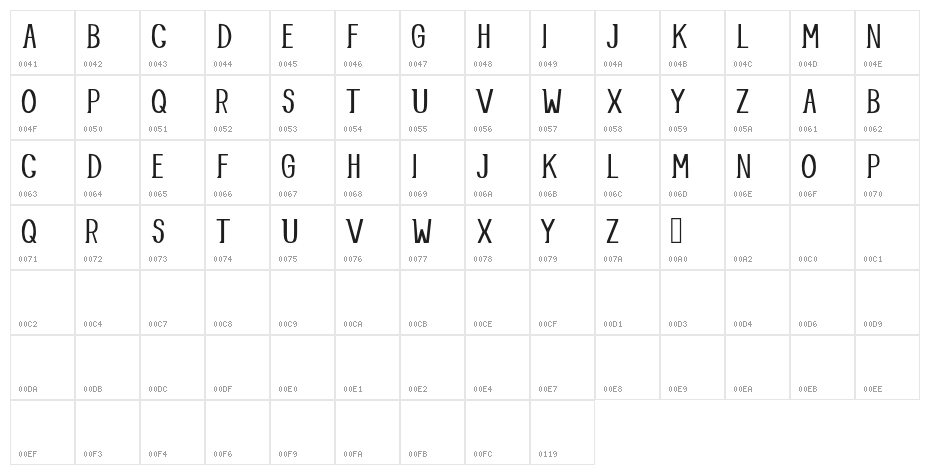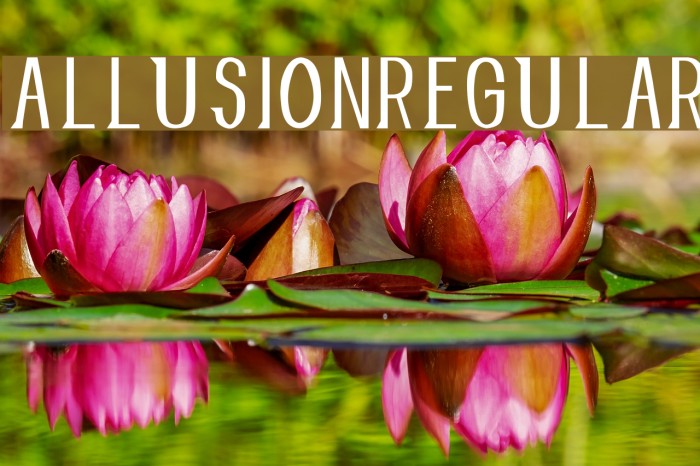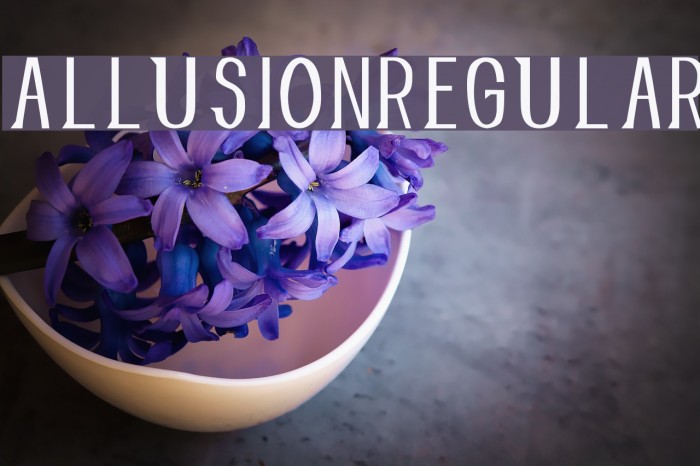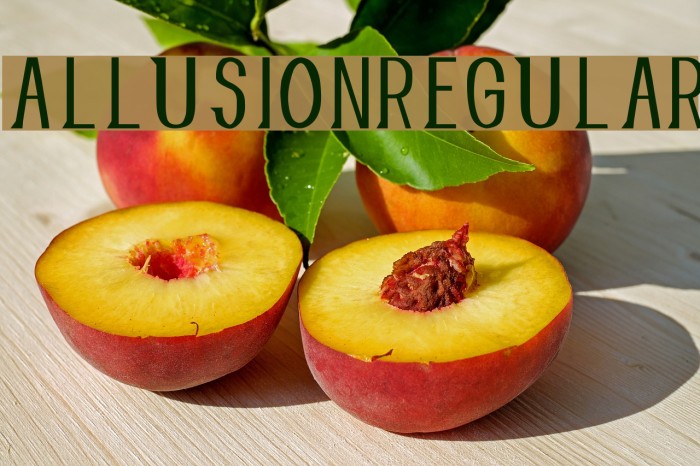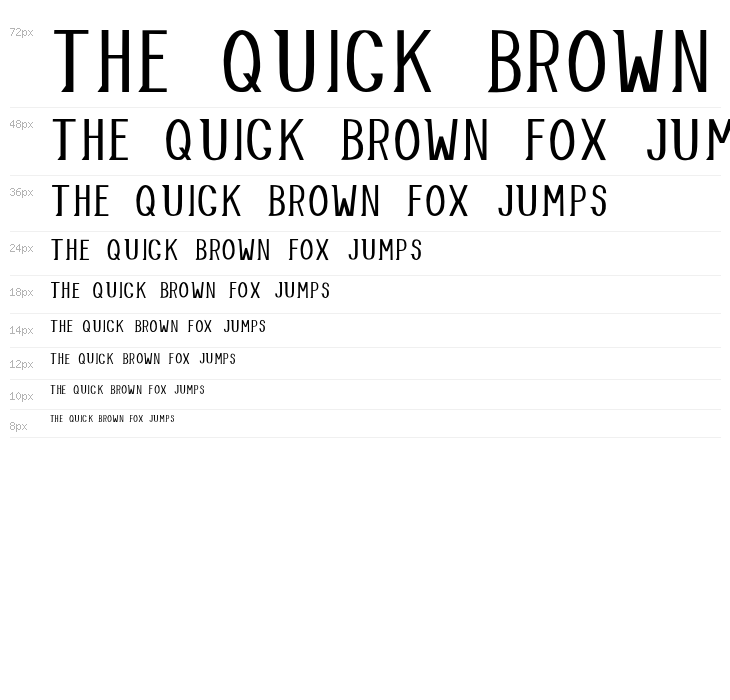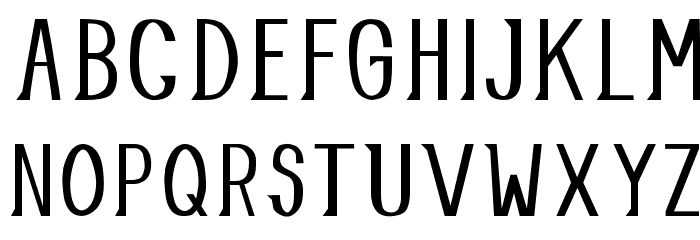
AllusionRegular Font
AllusionRegular Description
This font features a distinct and modern serif style, characterized by its tall, narrow letterforms and subtle serifs. The uppercase letters are particularly striking, with a clean and elegant appearance that maintains readability. The lowercase letters complement the uppercase with a similar narrow structure, offering a cohesive look across different text sizes. The numerals are designed to match the overall aesthetic, ensuring consistency throughout. Special characters are included, maintaining the same stylistic elements, making this font versatile for various applications.
| Proposed Projects | Ideal for editorial design, branding, and elegant invitations due to its modern and sophisticated appearance. |